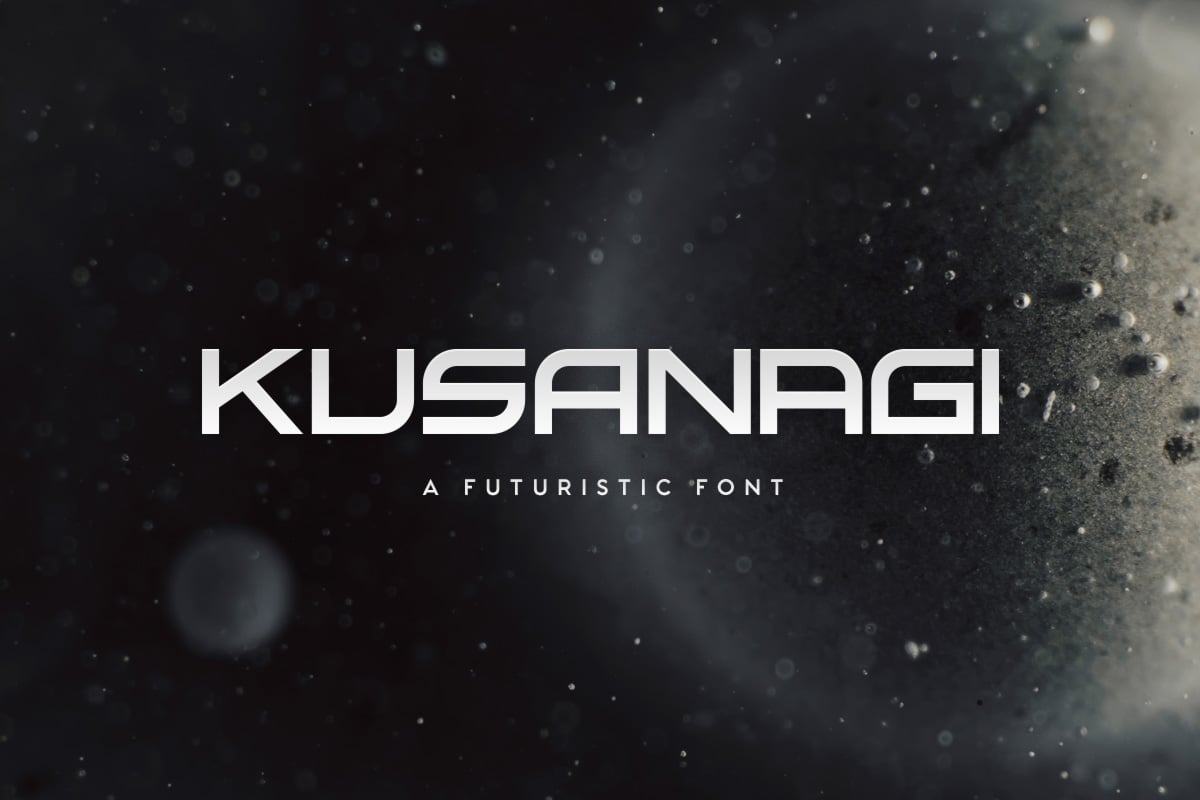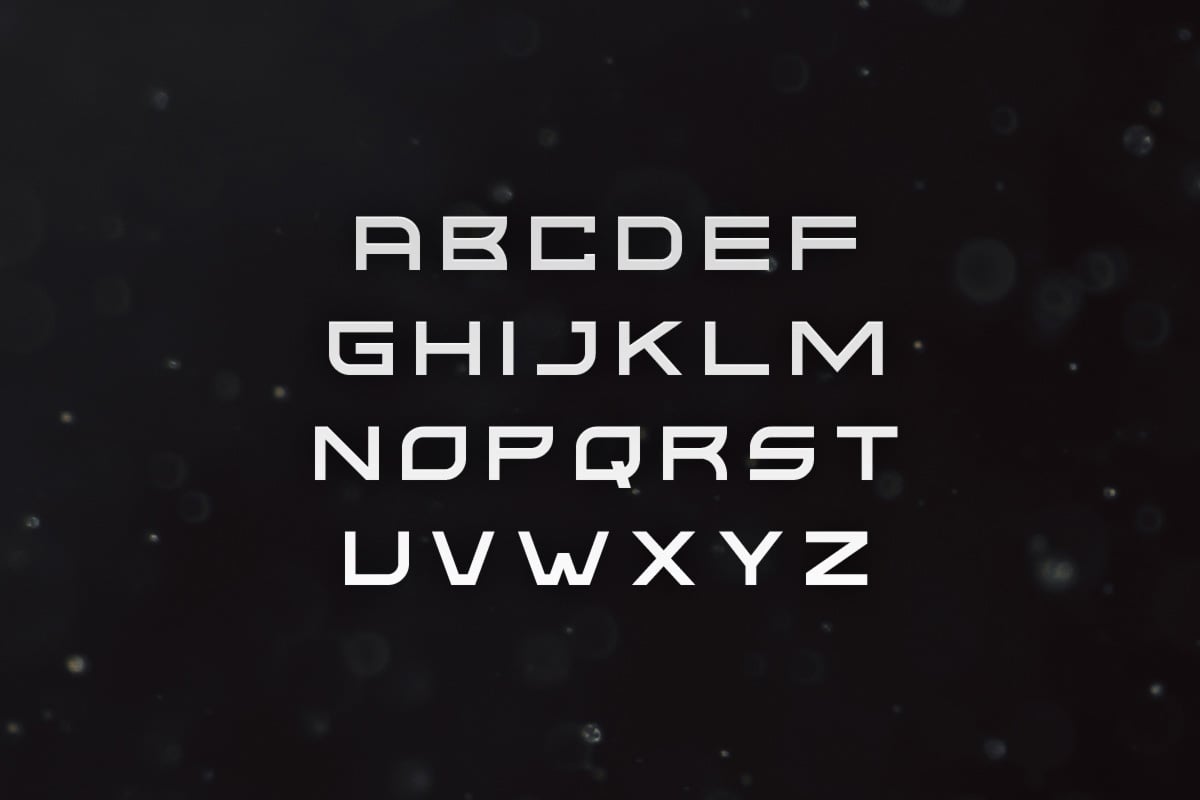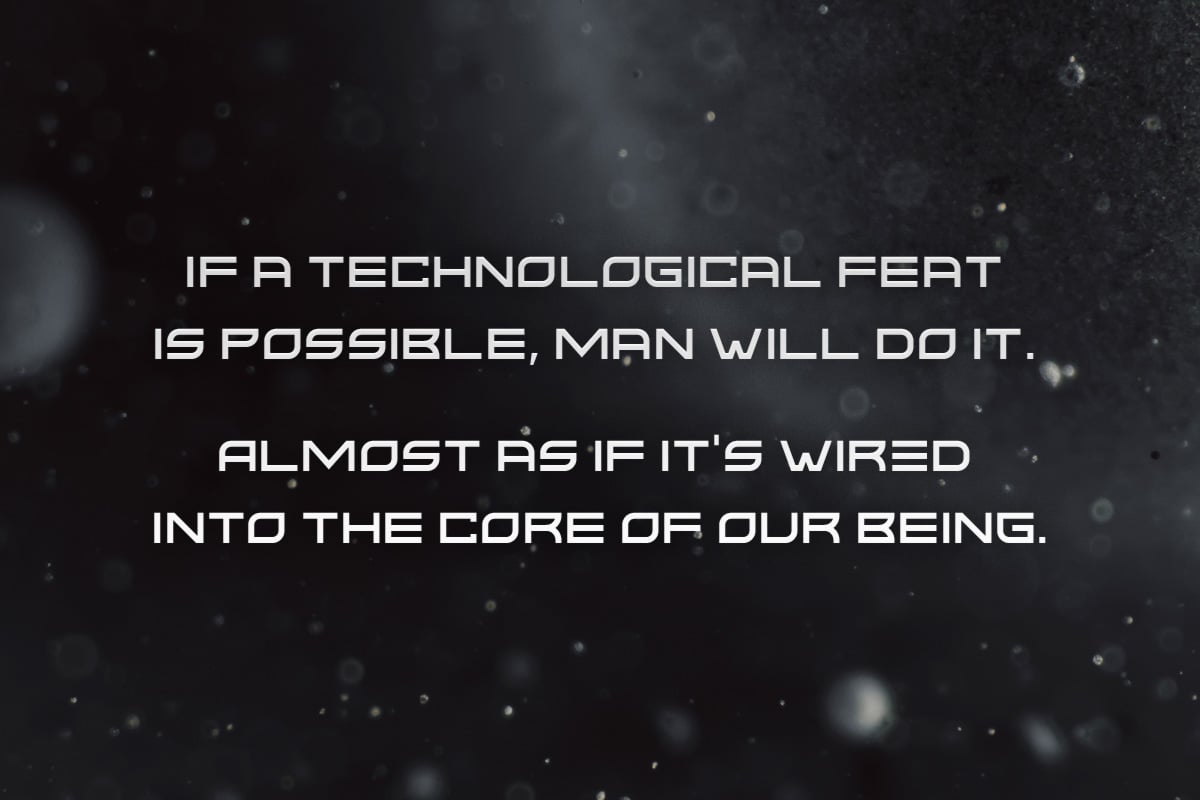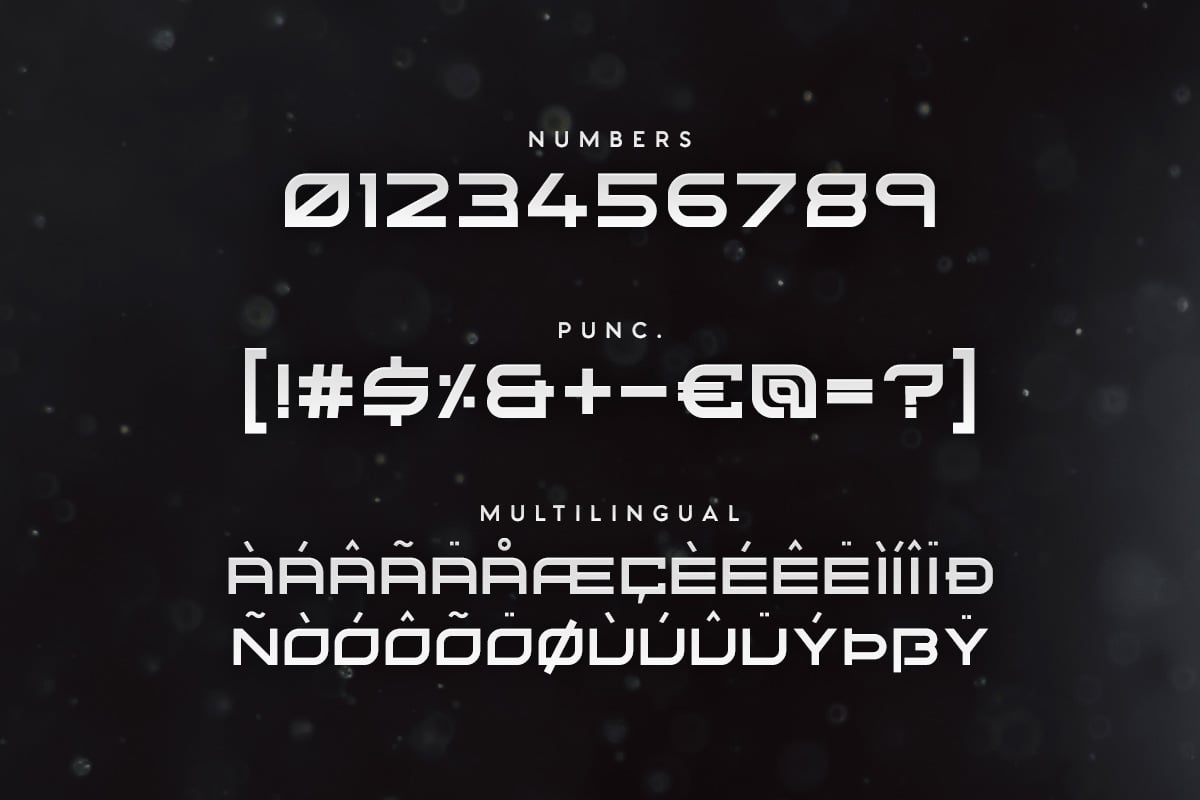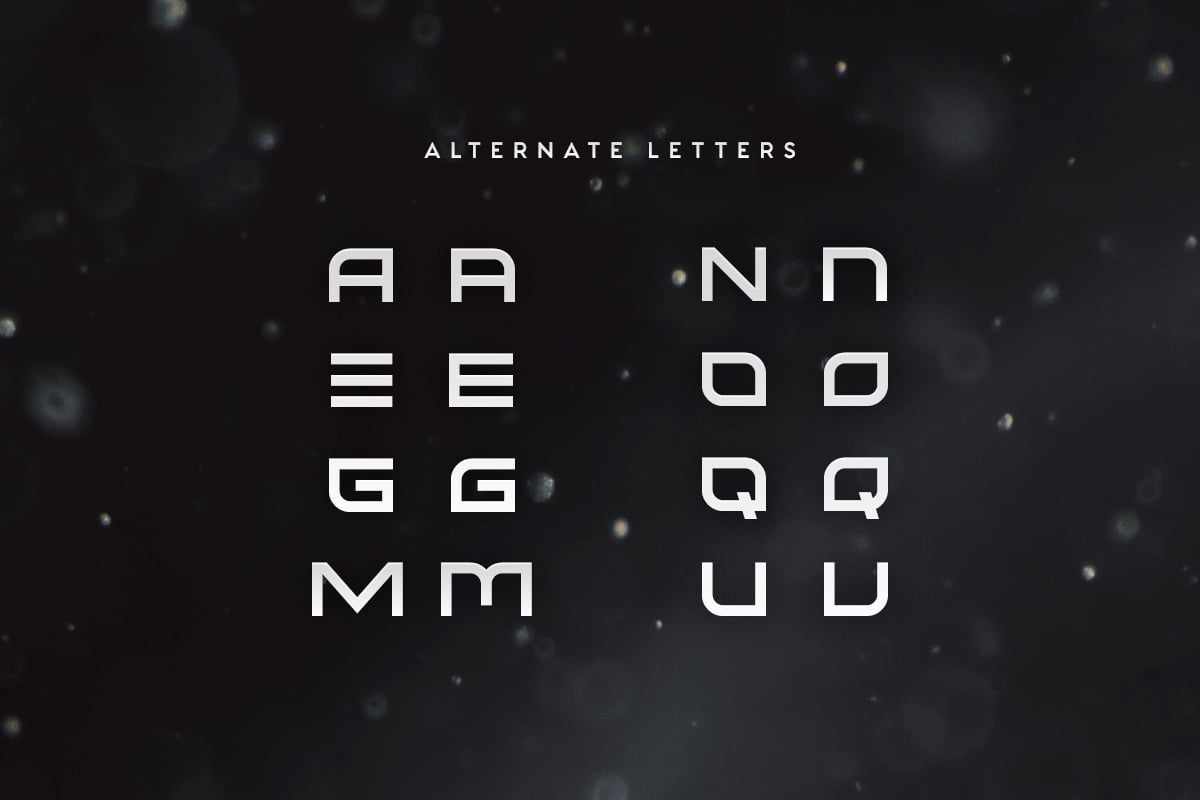
Kusanagi – Futuristic Font
Kusanagi is a wide futuristic font with alternate letters. The font features a mix of sharp and rounded corners, narrow spacing to accommodate for the wide letters and has a blocky feel to it, making it ideal for titles, subtitles and UI.
Kusanagi has multilingual support and includes the webfont version.